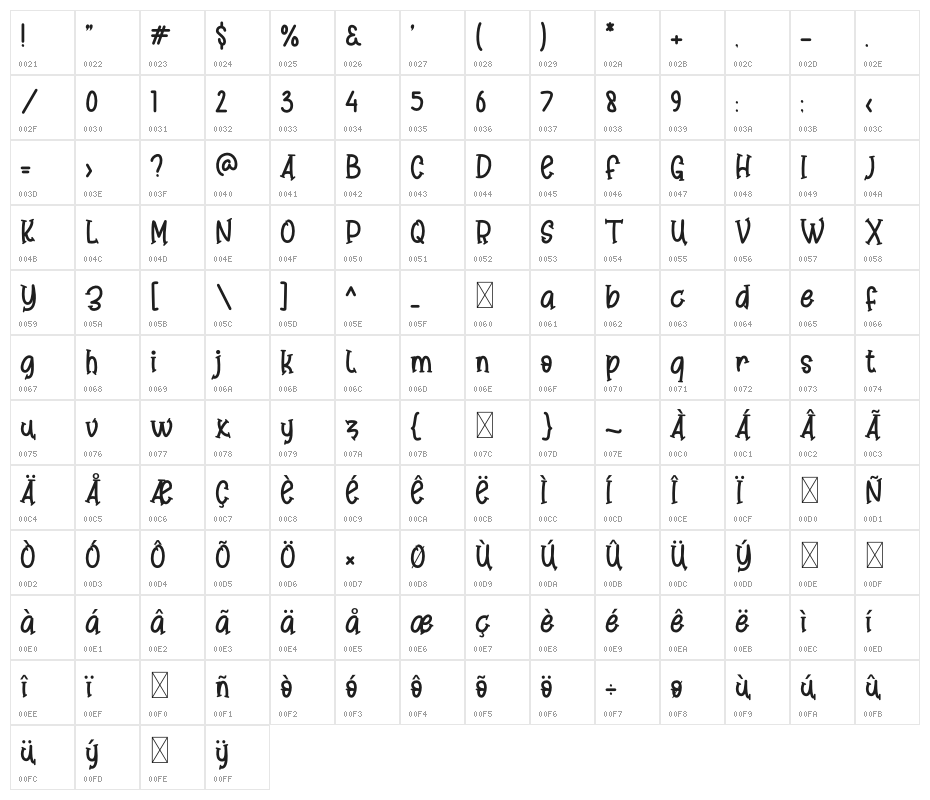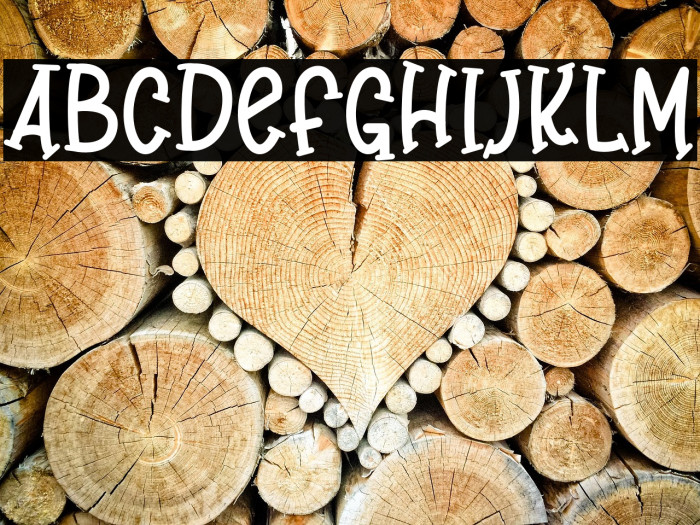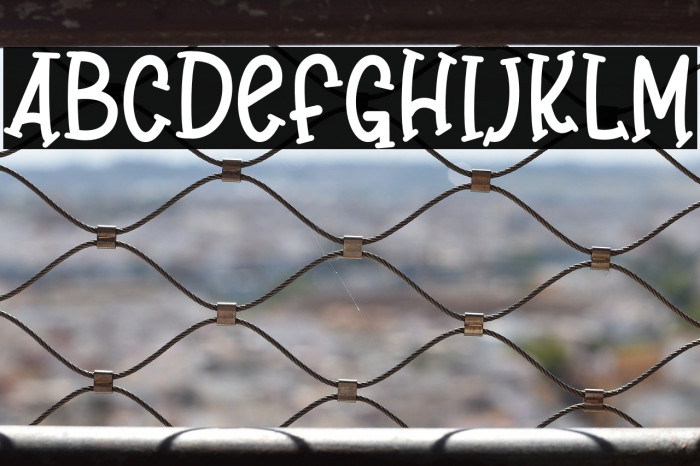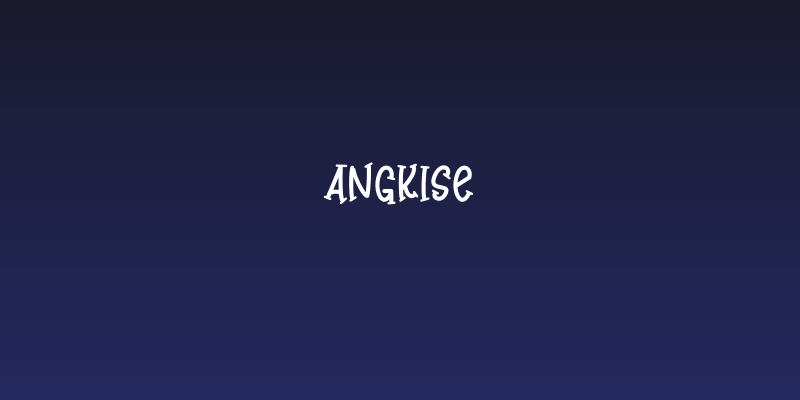
Angkise Font
Angkise Description
This font features a playful and whimsical style with a hand-drawn appearance. The letters have a slightly irregular shape, giving them a casual and informal look. The strokes are bold and rounded, with a moderate contrast between thick and thin lines. The overall design is lively and energetic, making it suitable for projects that require a fun and approachable aesthetic. The characters are well-spaced, providing good readability while maintaining a unique and artistic flair.
| Proposed Projects | Ideal for children's books, greeting cards, playful branding, and casual event invitations. |